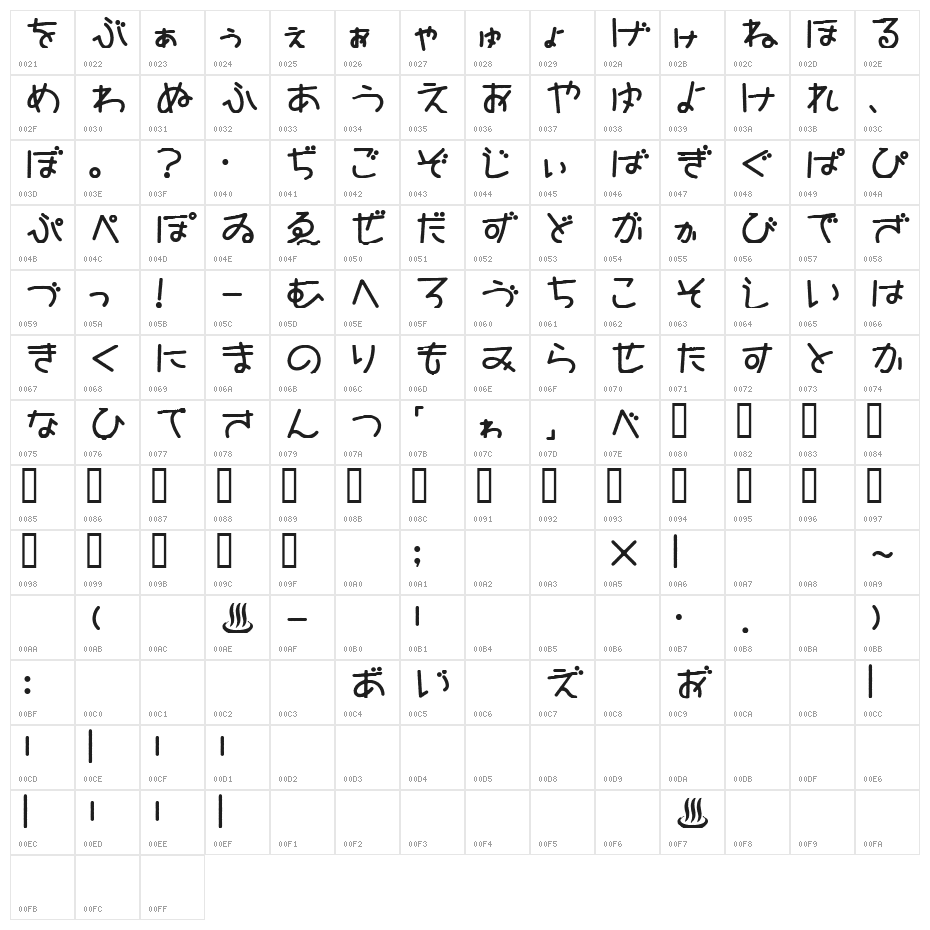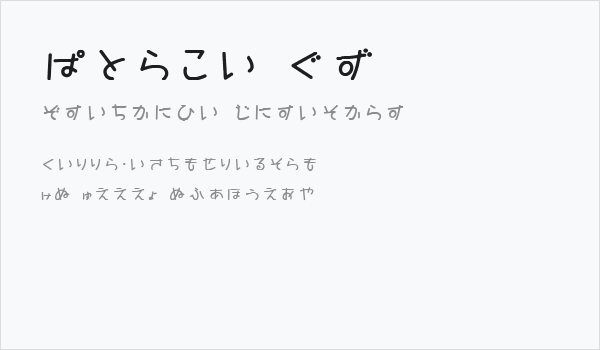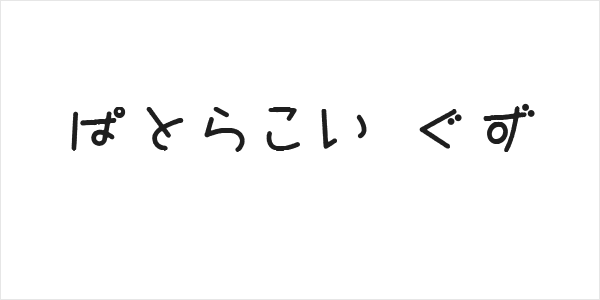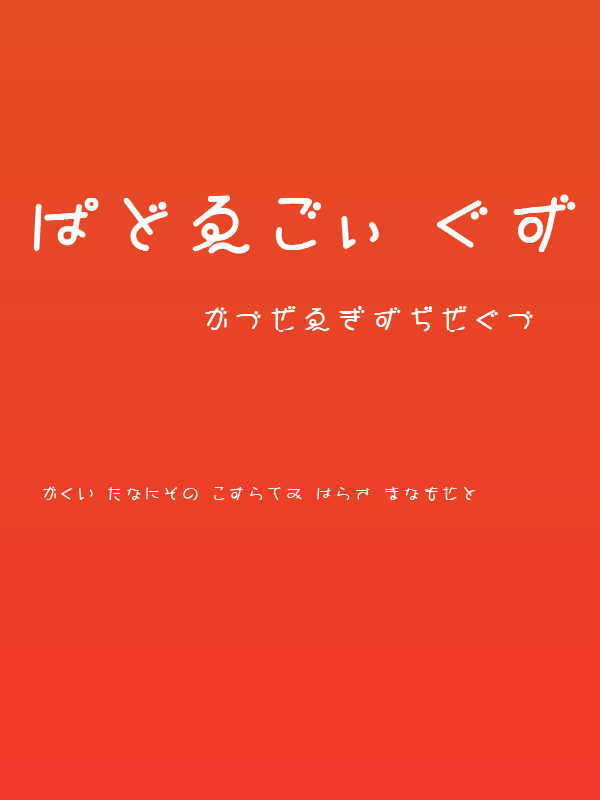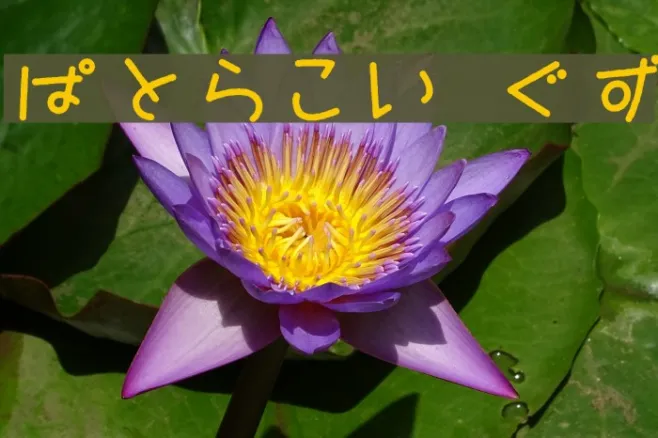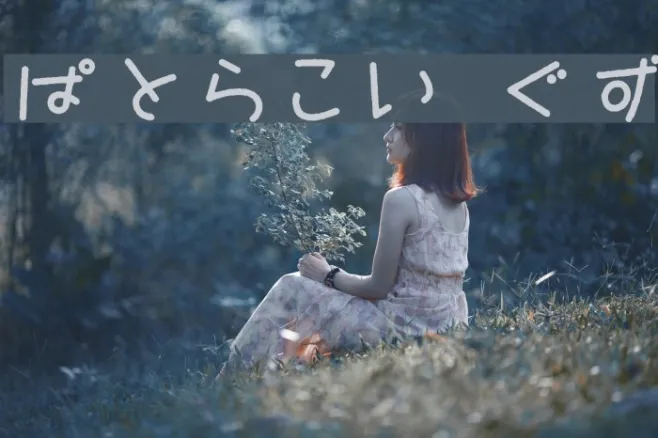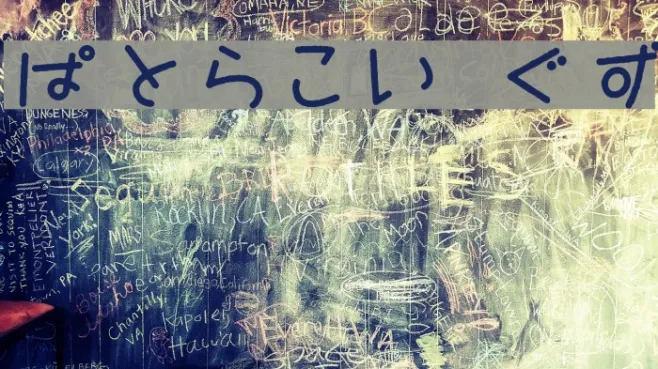
Isobe HR Font
Isobe HR Description
This font features a playful and casual handwritten style, characterized by its smooth, rounded strokes and slightly irregular baseline. The characters exhibit a friendly and approachable appearance, making it suitable for informal and creative projects. The strokes are consistent in width, providing a uniform look across all characters. The font's design is simple yet effective, with a touch of whimsy that adds personality to any text. Its legibility is maintained even at smaller sizes, making it versatile for various applications.
| Proposed Projects | Ideal for children's books, greeting cards, informal invitations, and creative branding. |